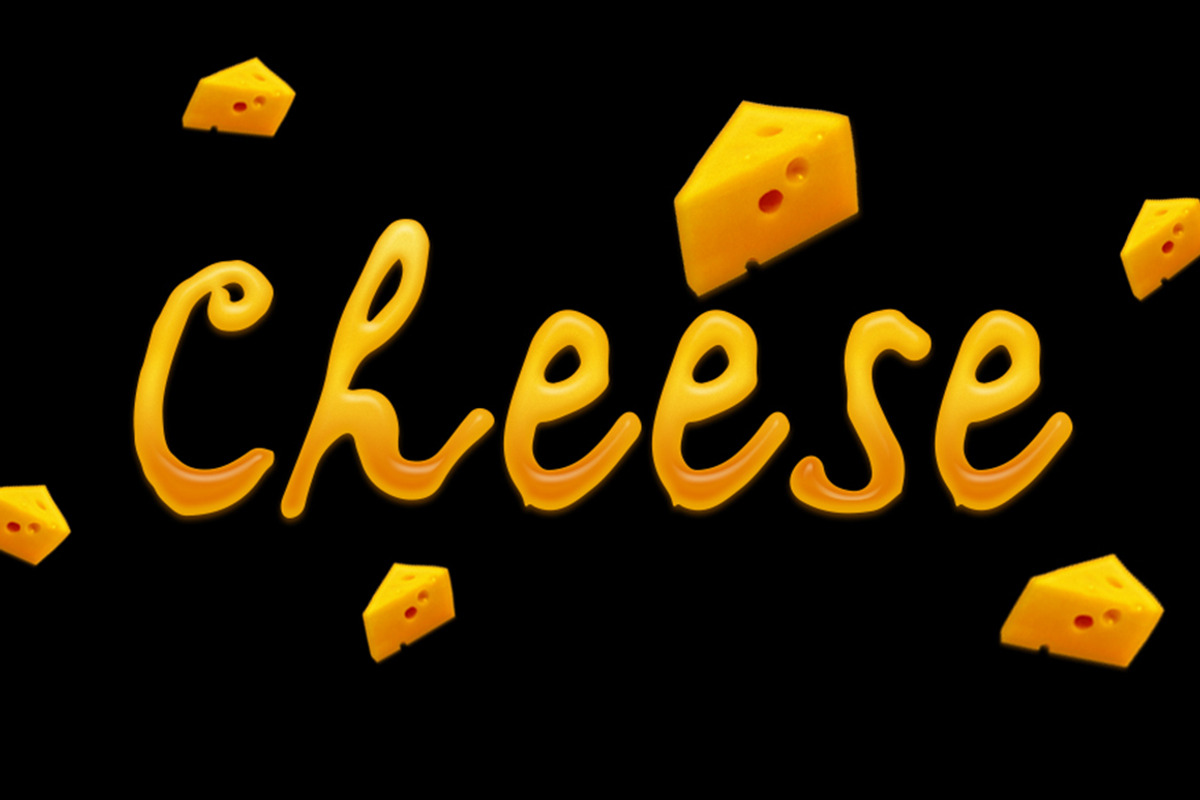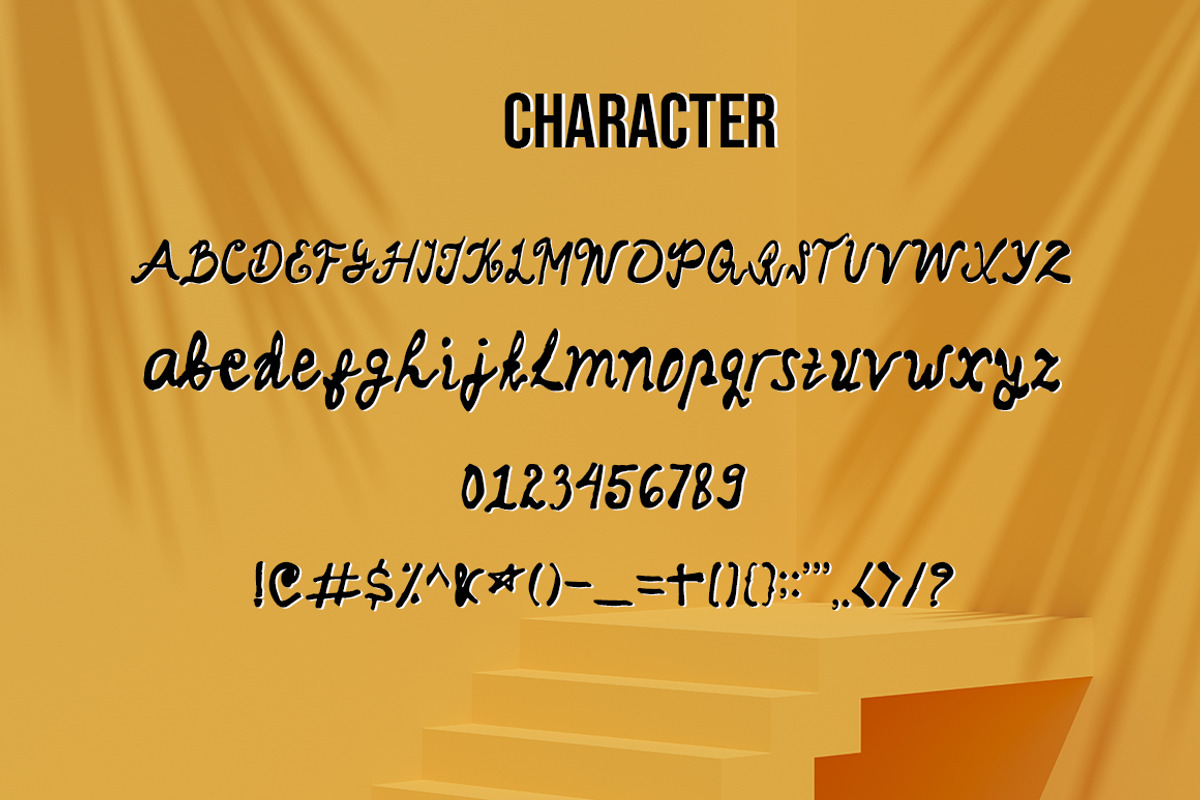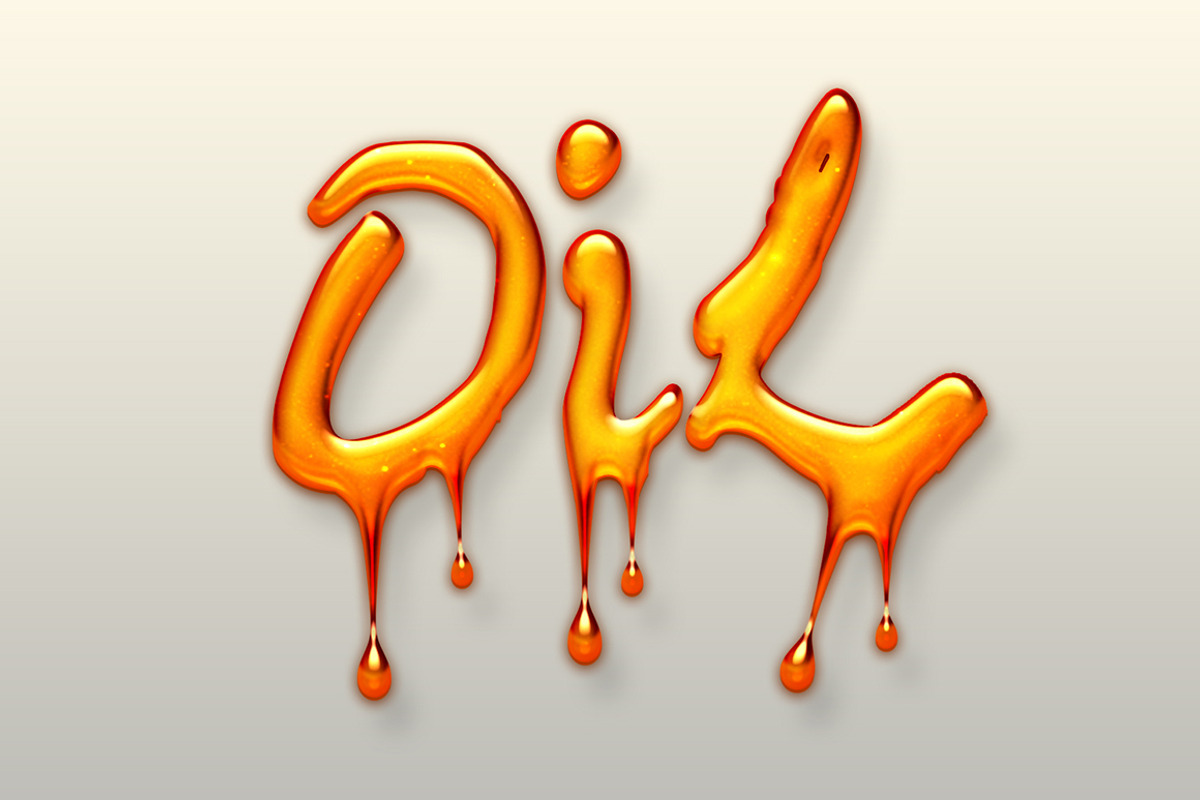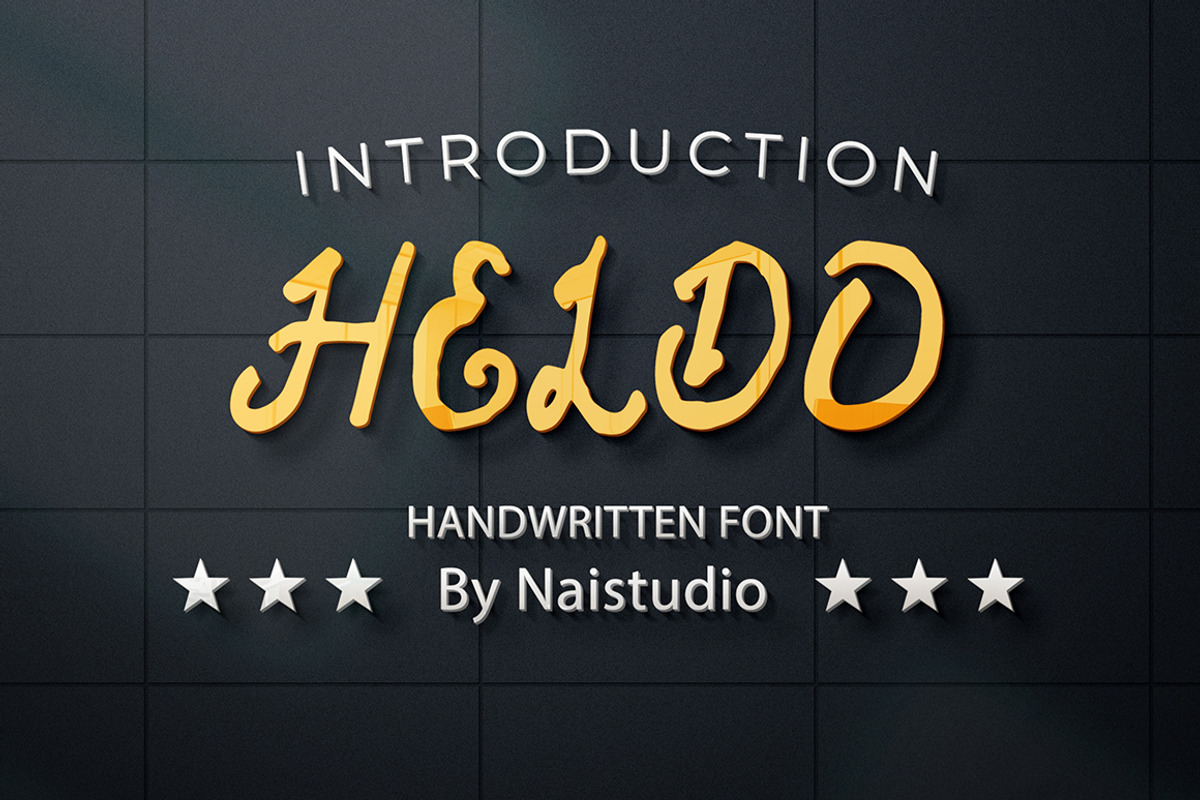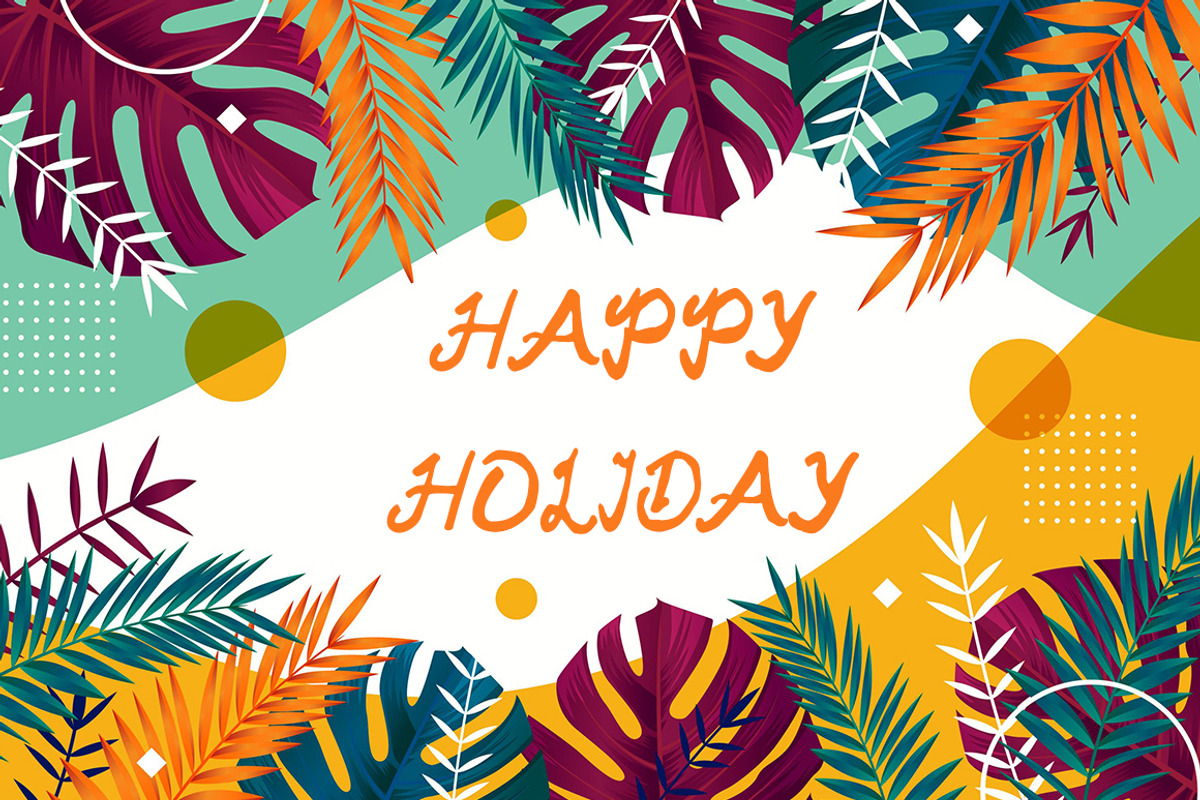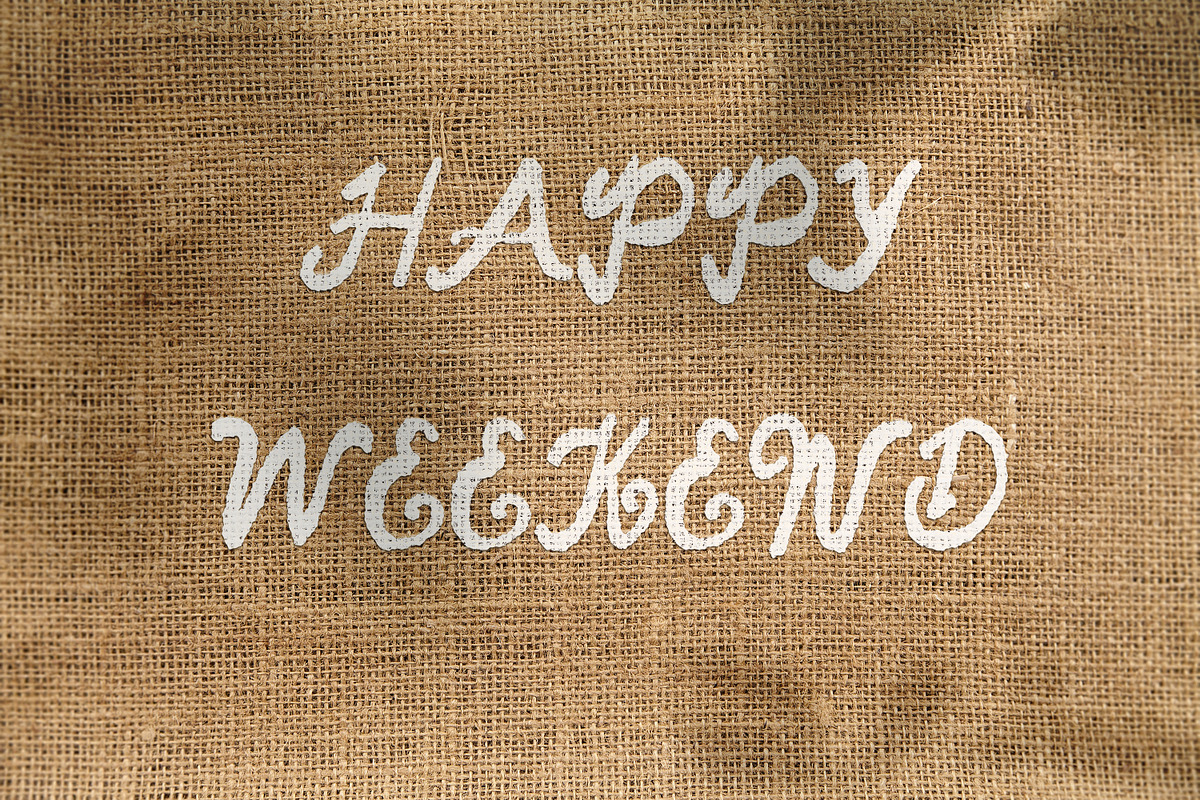
HELDO - Elegant Handwritten Font
Introducing HELDO - Elegant Handwritten Font
Heldo is a delicate, elegant and flowing handwritten font. It has beautiful and well balanced characters and as a result, it matches a wide pool of designs. Add it to your most creative ideas and notice how it makes them come alive!